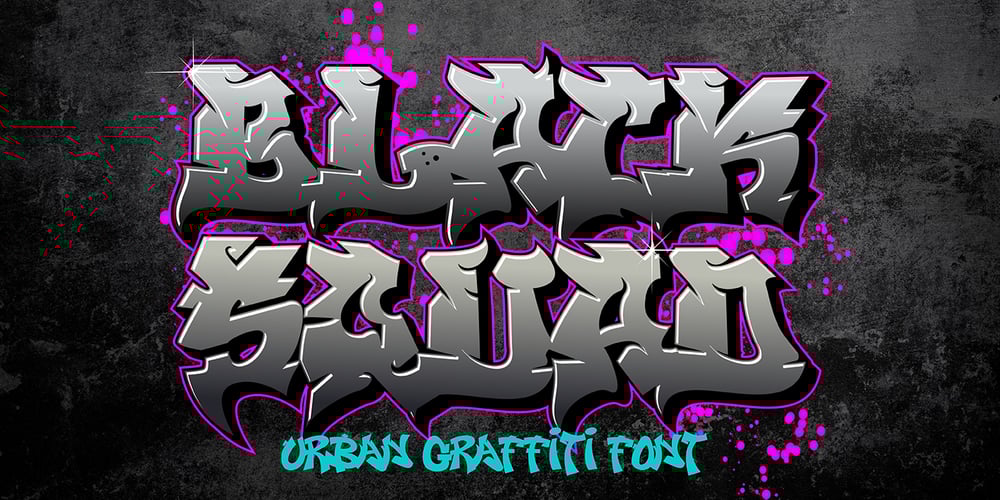
Black Squad Graffiti Font Family was designed by Sipanji and published by Sipanji21. Black Squad Graffiti contains 1 styles and family package options. “Black Squad” is an urban graffiti font characterized by sharp edges and a bold look. Ideal for music posters, apparel designs, shirts, and streetwear, this font brings a touch of edginess to your projects. The unique style of “Black Squad” makes it the perfect choice for death metal or urban graffiti themes. Whether you want to create a strong and powerful statement or simply add a touch of attitude to your designs, “Black Squad” is the font for you.